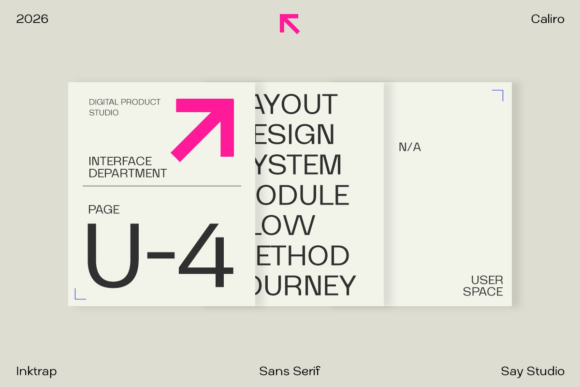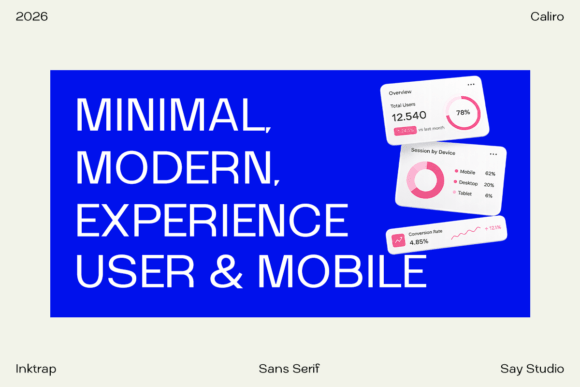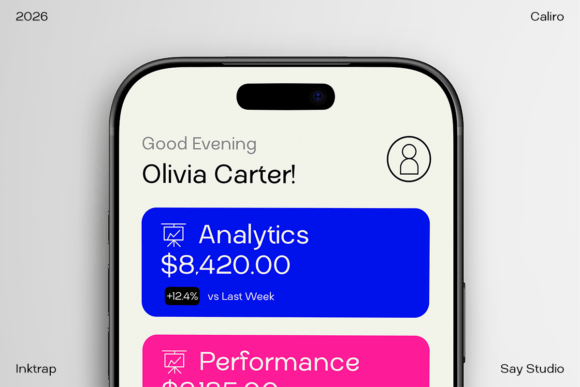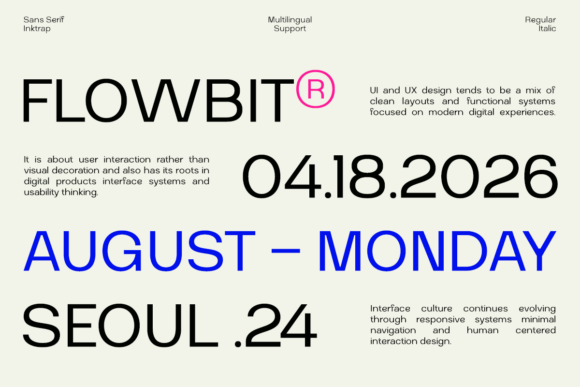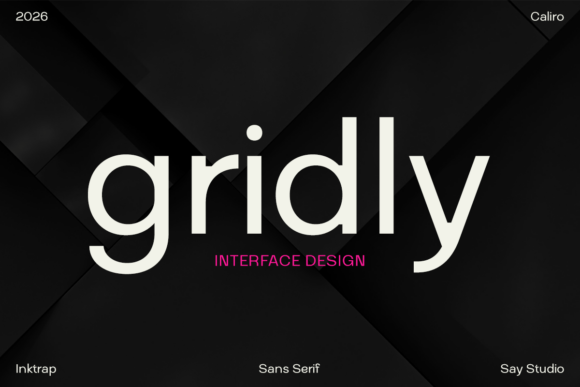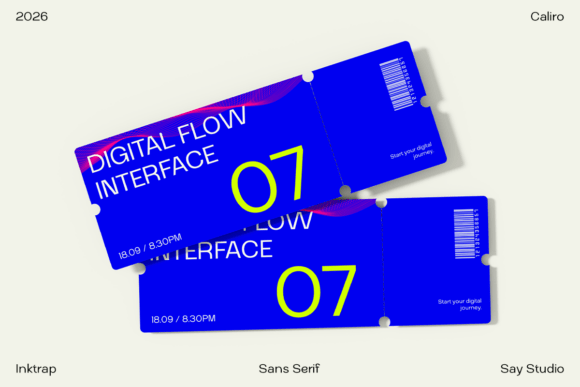
Designing the Future: Introducing the Calior Font
As a designer, you’ve been there – staring at a blank canvas, trying to convey a revolutionary idea with nothing but words and a few bold strokes. The pressure to create something truly innovative can be overwhelming. But what if you had a secret weapon in your arsenal – a font that embodies the essence of modernity and forward-thinking design?
Meet the Calior Font, a cutting-edge sans serif typeface engineered to capture the essence of contemporary digital aesthetics. With its clean geometry and sleek precision, this font is the perfect companion for designers looking to create premium, intelligent, and visionary designs that leave a lasting impression. Whether you’re crafting UI/UX projects, startup branding, or tech presentations, the Calior Font adapts effortlessly to bring your ideas to life.
Calior Font Key Features
- Font Family: Calior is a sans-serif font family, designed to provide a clean and modern look.
- Font Size: Calior is available in a range of font sizes, from 12pt to 72pt, making it suitable for various design applications.
- Resolution: Designed for high-resolution displays, Calior font is optimized for screens with a resolution of 72 dpi and above.
- Unique Characteristics: Calior features a unique blend of modern and minimalist design elements, making it an excellent choice for corporate branding and digital products.
- Language Support: Calior font supports a wide range of languages, including English, Spanish, French, German, Chinese, and many more, making it an ideal choice for global brands.
Calior Font Review
I recently had the chance to work with the Calior font, and I’m excited to share my honest thoughts about this beautiful typeface. ✨ One thing that immediately caught my attention was the elegant and refined aesthetic of Calior. It’s perfect for any project that requires a touch of sophistication and elegance.
- ✨ Elegant and refined aesthetic
- ✨ Wide range of weights and styles to choose from
- ✨ Perfect for projects that require a touch of sophistication and elegance
- ⚠️ Limited support for non-Latin scripts
- ⚠️ May not be suitable for projects that require a bold or edgy look
- ⚠️ Some characters may not display properly at smaller font sizes
Overall, I’m impressed with the Calior font, but I do think it has some limitations. If you’re looking for a elegant and refined typeface, Calior is definitely worth considering. However, if you need a font that’s more versatile or can handle non-Latin scripts, you may want to look elsewhere.
Use Calior font for creative and artistic projects, such as invitations, posters, and social media graphics.
Combine Calior font with other fonts for a unique and eye-catching look.
Calior font is commonly used for:
Social media graphics and advertisements
Poster design and promotional materials